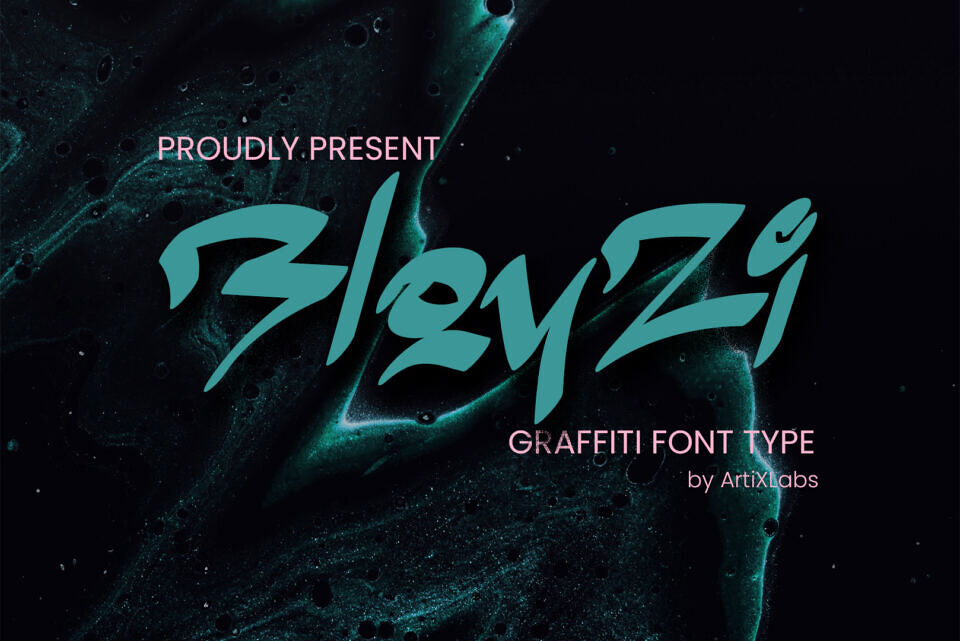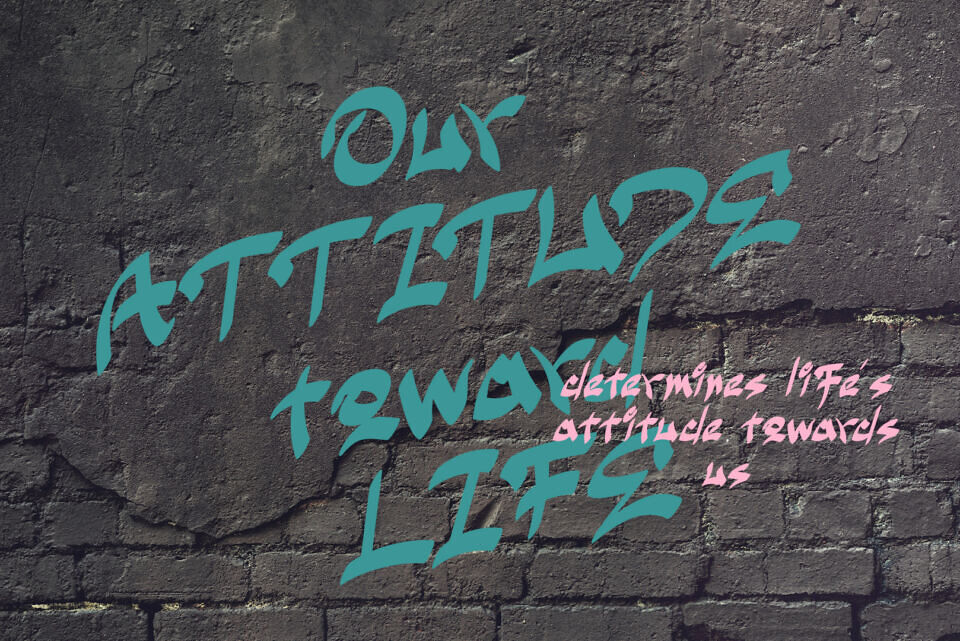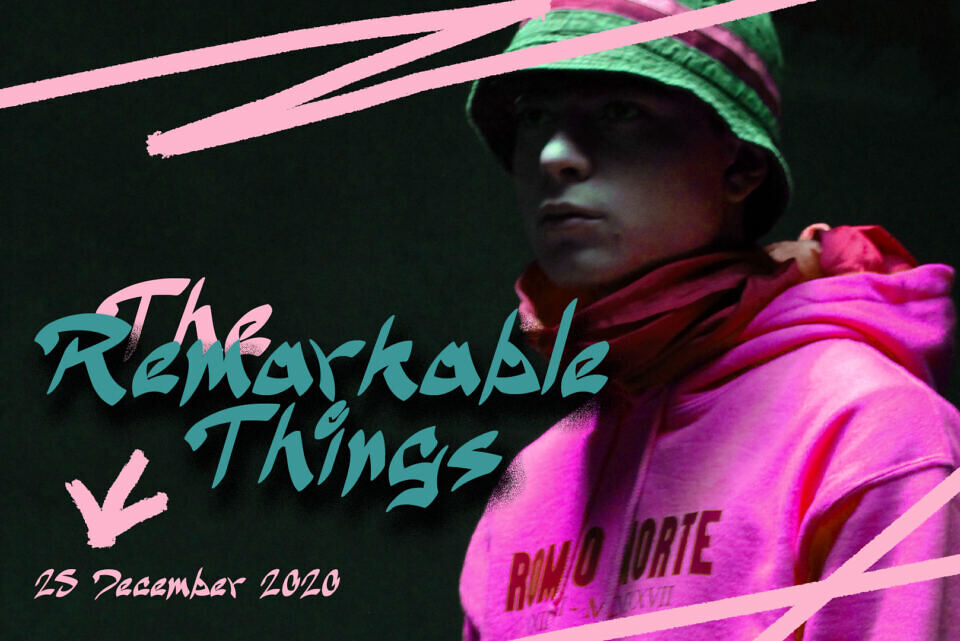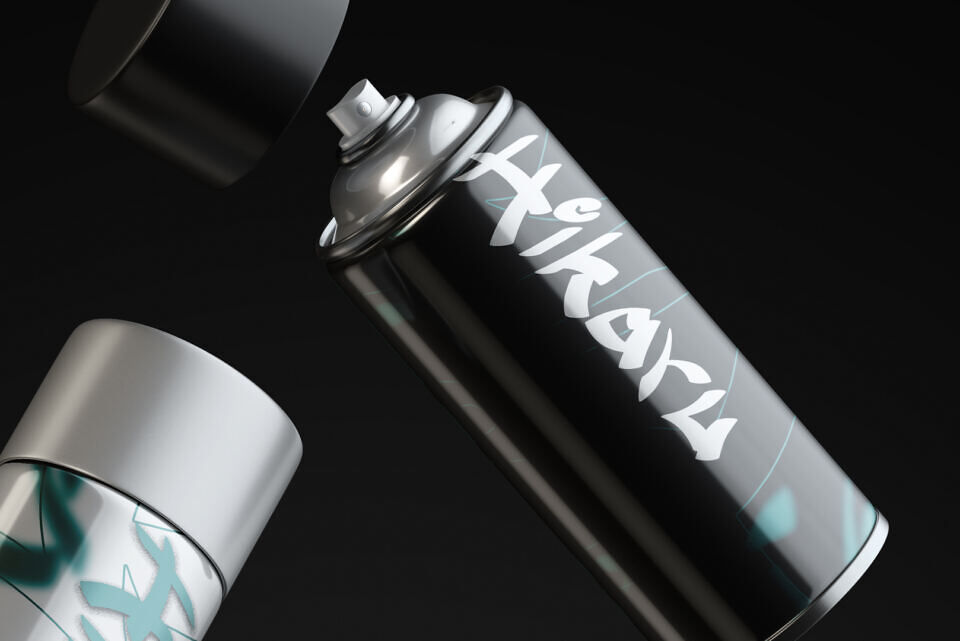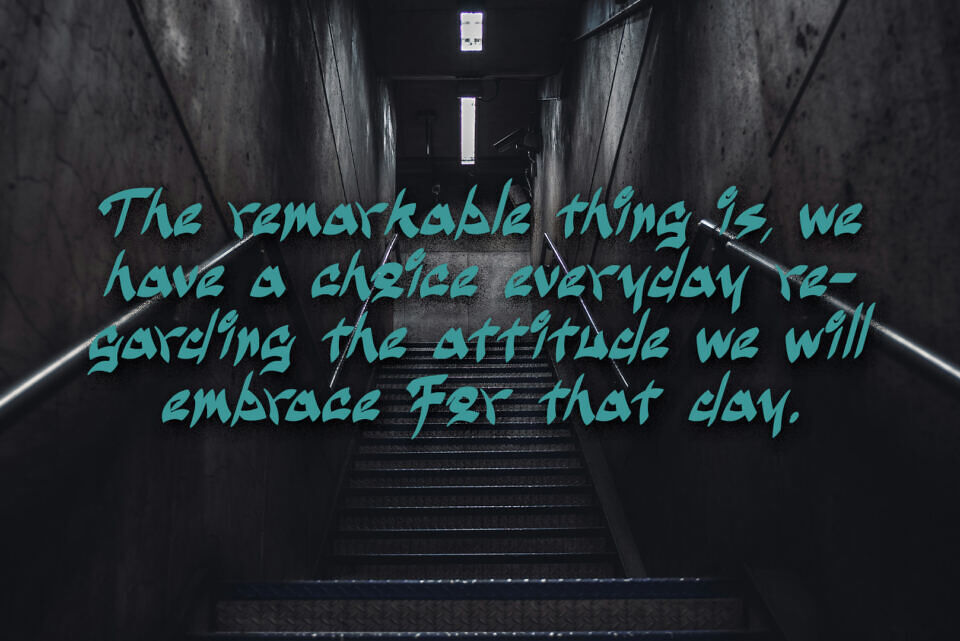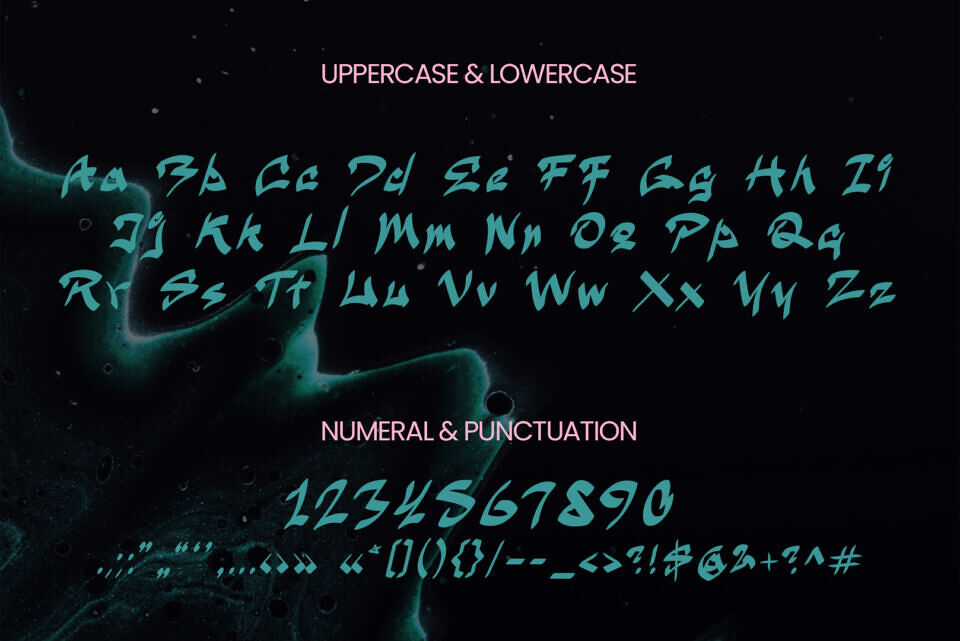
Experience the raw energy of the streets with BloyZi, a daring graffiti brush display font. With its fluid strokes capturing the vibrancy of urban graffiti, BloyZi exudes a distinctive handstyle dynamism.
This font is the epitome of street art modernity, amalgamating an edgy attitude with a refined aesthetic. From provocative posters and chic streetwear branding to expressive social media graphics, album covers, and impactful headlines, BloyZi crafts designs that leave an indelible impression.